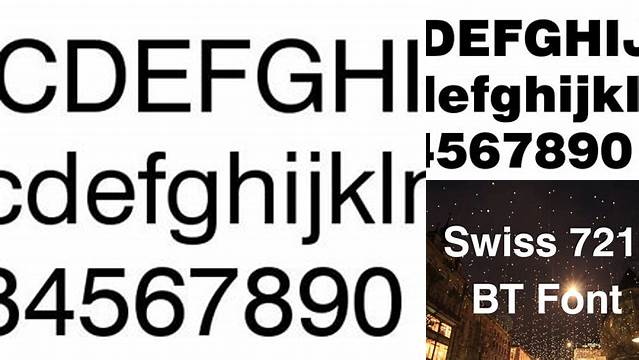
What is Font Swiss 721 Blk BT?
Alright, first things first: What exactly is Font Swiss 721 Blk BT? Simply put, it's a bold and impactful member of the Swiss 721 family. This font is known for its strong, clean lines and a distinct presence that commands attention. The "Blk" in its name, of course, stands for "Black," which perfectly describes its heavy, robust appearance. This typeface is a variation of the original Swiss 721, often used for headlines, titles, and any situation where you want to make a bold statement. The BT suffix indicates that it's a version of the font that's been adjusted or released by Bitstream, a well-known font foundry. One of the primary appeals of this font is its readability, even at larger sizes. This quality is really important if you want to make a big splash with your designs.
This font is a versatile choice because of its sheer boldness. You can use it for creating eye-catching logos, striking posters, and engaging website headers. In fact, it’s a great option for everything that requires a strong visual punch. Think about billboards, magazine covers, and any marketing material that needs to grab people’s attention fast. The font's clear design is also well-suited for digital platforms, where clear legibility is key. Even on smaller screens, Font Swiss 721 Blk BT maintains its impact and clarity. Compared to lighter fonts, Font Swiss 721 Blk BT often adds more weight and gravitas to your designs. You'll get a look that immediately suggests professionalism and confidence. Its applications span many different kinds of designs, giving you the flexibility to bring your creative visions to life. From print to digital, it's a design workhorse! Its clean lines and strong presence make it a favorite among designers. Whether you're a beginner or an experienced professional, you'll find that this font is an excellent tool for enhancing your creative work. Make sure your design projects stand out from the crowd by selecting the Font Swiss 721 Blk BT. It's not just a font; it's a design statement. The best part? You can get it for free, which we'll talk about next!
How to Use Font Swiss 721 Blk BT Effectively
Once you've got your Font Swiss 721 Blk BT free download, it’s time to use it! Its bold design makes it best suited for headings, titles, and any text that needs to stand out. Don't be afraid to experiment with size and spacing to achieve the desired look. Remember that it is a heavy font, so you'll want to use it sparingly to avoid overwhelming your design. A little goes a long way! Here are some tips on using it effectively: consider using it for headlines in print and digital materials like posters, flyers, and website headers. The strong, clean lines of this font ensure high readability, even from a distance. For body text, it is probably not the best fit! Its boldness can make it hard to read in long blocks of text. However, you can use Font Swiss 721 Blk BT for emphasis or to highlight key phrases within your body copy. Consider using this font to create eye-catching logos. Its strong presence can create a memorable brand identity. Think about pairing Font Swiss 721 Blk BT with a more subtle font to create a balanced design. This will give your design visual interest. You can add a pop of style by using the font with a lighter or more delicate font for body text, or use it with other fonts to achieve a balanced look.
When it comes to color, Font Swiss 721 Blk BT works well with both light and dark backgrounds. Experiment with different color combinations to see what best fits your design. You can also use the font to make your designs pop by adding different colors. Don't be afraid to play around with the font's character spacing. Adjusting the spacing can improve readability and aesthetics, especially at larger sizes. This font is great for creating a strong brand identity. In the end, Font Swiss 721 Blk BT is a great tool. Be creative, experiment, and explore. Try the font in various design contexts to see what looks and works best for you. It's perfect for a variety of creative projects!
Design Projects Where Font Swiss 721 Blk BT Shines
Font Swiss 721 Blk BT is a versatile typeface that can be used in various design projects, so let's get into some ideas! The bold, strong character of this font makes it ideal for certain applications and gives it a unique edge. It's going to be a great choice for many projects. First off, let's talk about logo design. The font is great for creating logos. Because of its clean, modern lines, the font works well for brands looking for a professional, impactful look. The font's inherent boldness grabs attention, and makes it excellent for any brand that wants to make a visual statement. Now, let's consider website headers. Its readability makes it ideal for website headers, especially on sites that want to project authority and clarity. Used in this way, the font helps to create a great first impression. You can also create posters and flyers. Its impactful presence makes it a great choice for these materials. The font ensures that your message will be clearly visible.
Next up: packaging design. If you are making a product, you're going to want to make an impression. The font is great for creating a distinct brand identity. Another great application is in creating magazine and book covers. It gives an impactful presentation that stands out. It's also awesome for advertisements. It is good for creating print or digital ads that need to grab attention. The font helps you achieve a striking visual effect. Its versatility allows for a wide range of creative expressions. In the end, you can use it to create social media graphics! The font's simplicity and impact make it very good for creating shareable visuals. Always remember to keep your target audience in mind when you are picking a font. Match the style to your goal, and always focus on creating a clear and memorable design. With the right application, Font Swiss 721 Blk BT can take your project to the next level. Its bold and confident nature can make any design stand out and communicate effectively. Keep experimenting! Play around with the font, and watch as your designs come to life!
Conclusion: Unleash Your Creativity with Font Swiss 721 Blk BT
So, there you have it! This font is a fantastic choice for anyone looking to make a bold statement in their designs. With its strong appearance and versatility, Font Swiss 721 Blk BT is a great tool for any designer. With its accessibility through free download options, it's easier than ever to integrate this font into your projects. Remember to always download from trustworthy sources, respect licensing agreements, and consider the design context when using this font. We hope this guide has given you the info and inspiration you need to start using Font Swiss 721 Blk BT in your creative work. Now get out there and start designing! Feel free to experiment with different applications, explore combinations, and make designs that will really capture attention. This versatile font is going to be your go-to. Happy designing, guys!